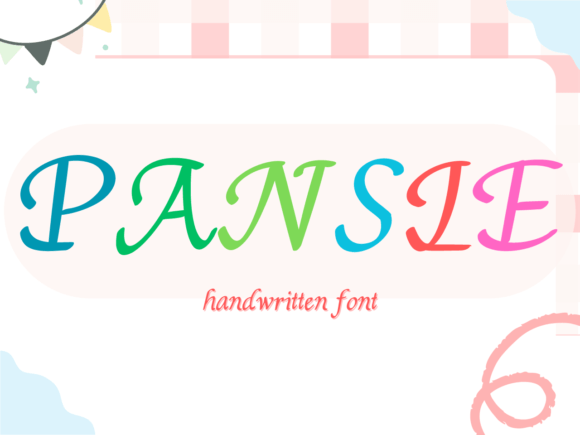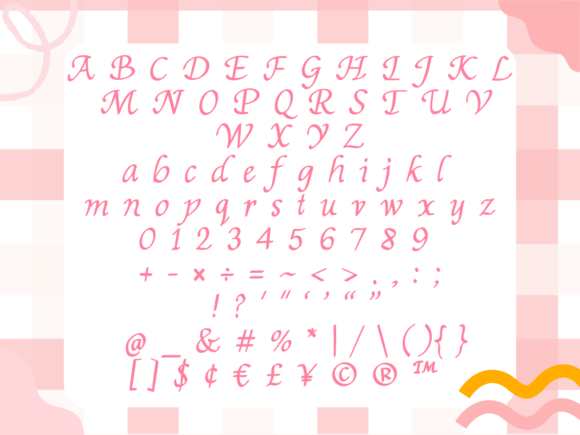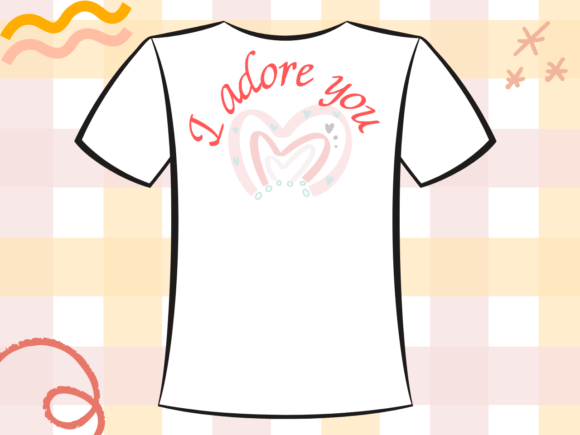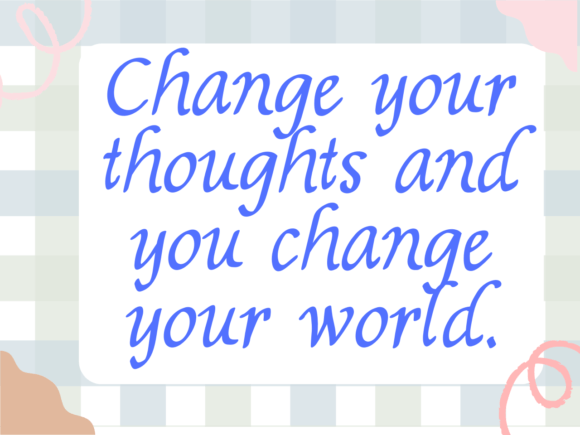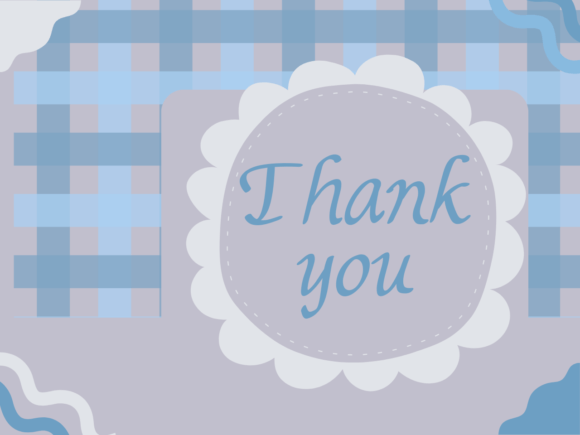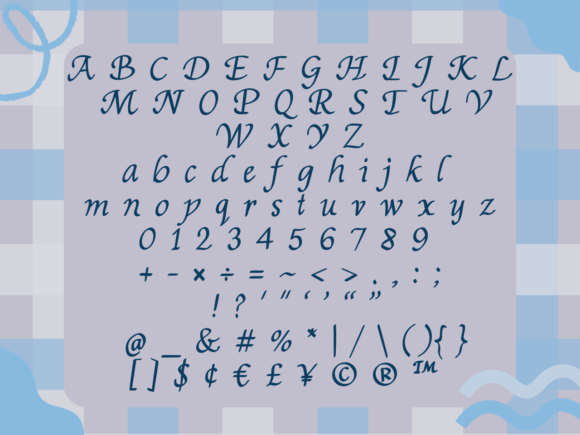
Introduction to Pansie Font
Pansie is a sweet and friendly handwritten font.
Pansie Font offers exceptional quality and versatility, making it a valuable addition to your design toolkit. Whether you’re creating for personal projects or commercial use, Pansie Font delivers professional results.